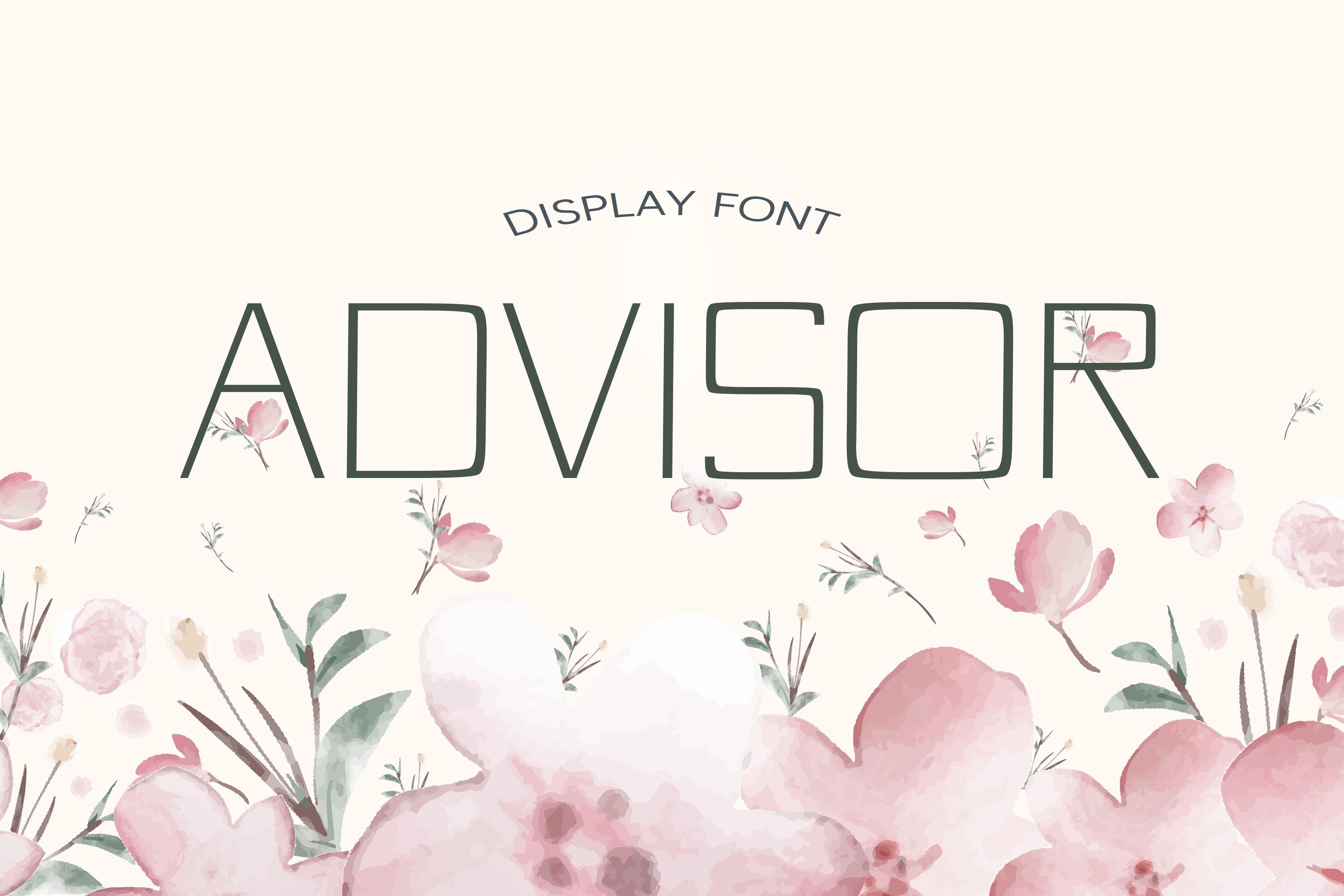
Advisor Font Description
Advisor is an intriguing display font with exaggerated and squared characters. It’s a modern, all-caps typeface that will stand out in your branding projects, striking posters, and as a unique display font for web or app development.